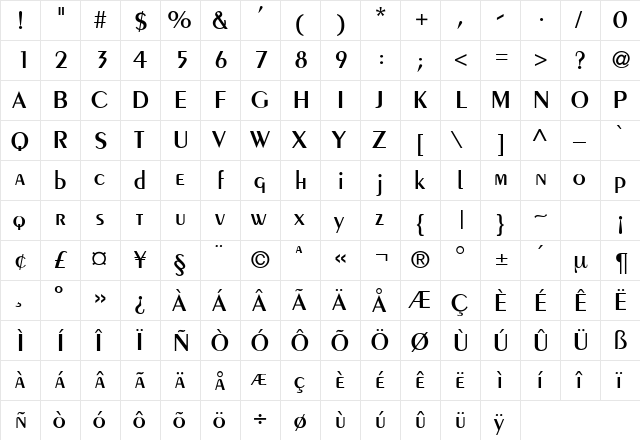
PeilotDB Normal
Design Context for PeilotDB Typeface
PeilotDB offers clean, dependable letterforms without strong stylistic allegiance, making it a practical choice for designers who need flexibility.
Pro Tip: Pair PeilotDB with a font of contrasting weight or personality to build a more expressive typographic hierarchy.